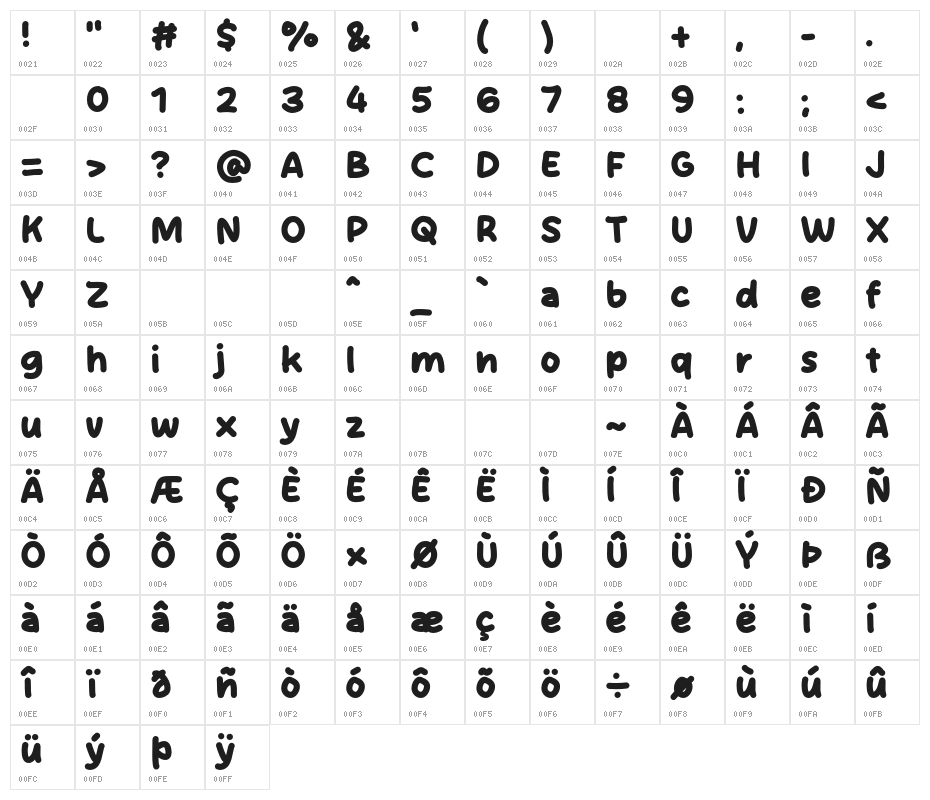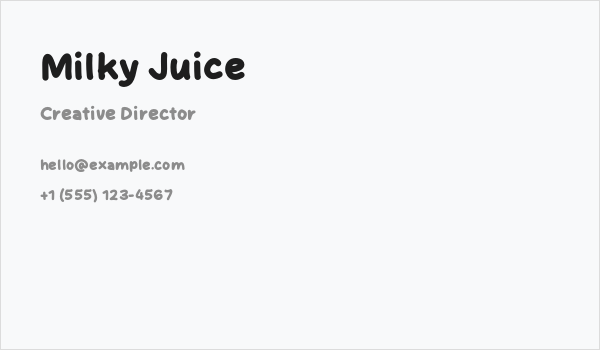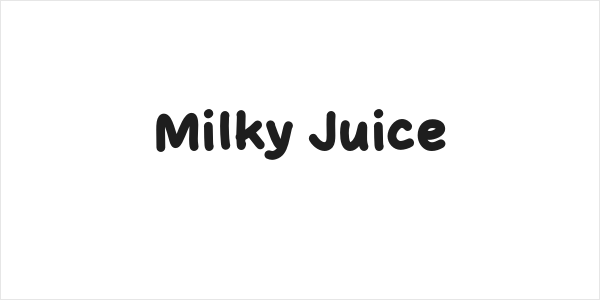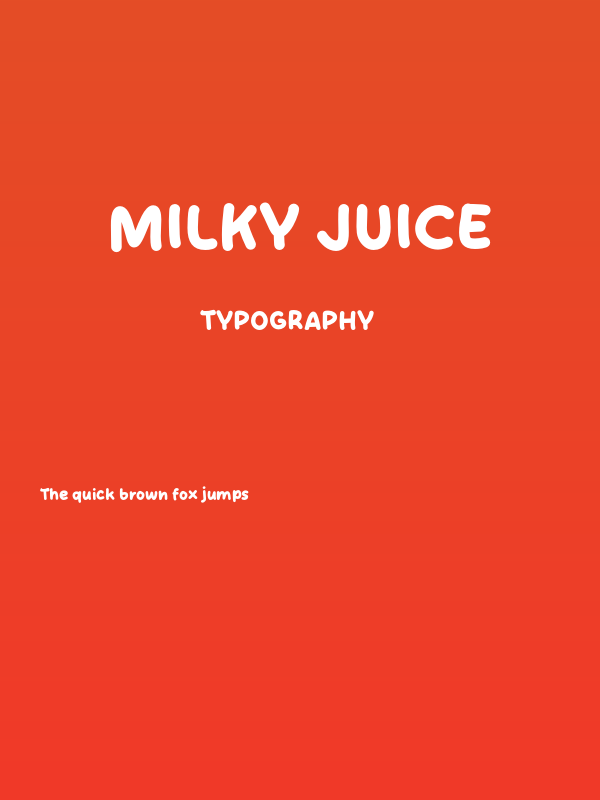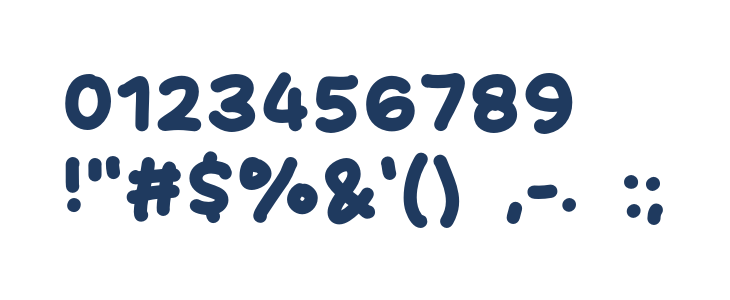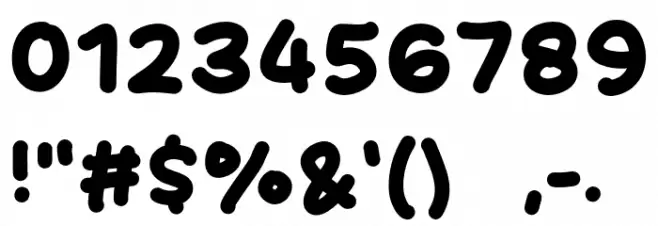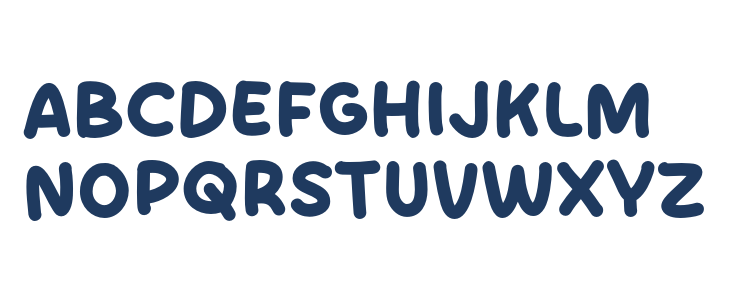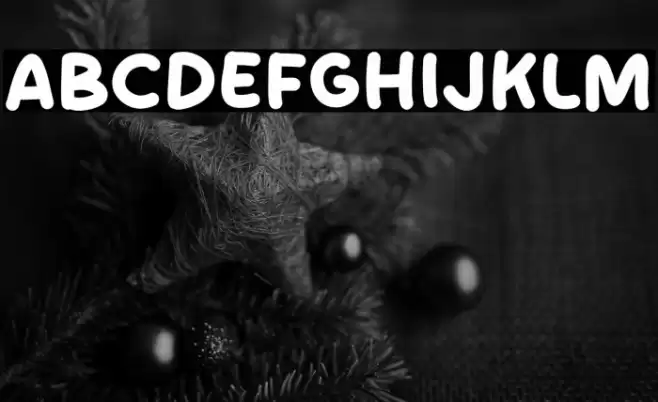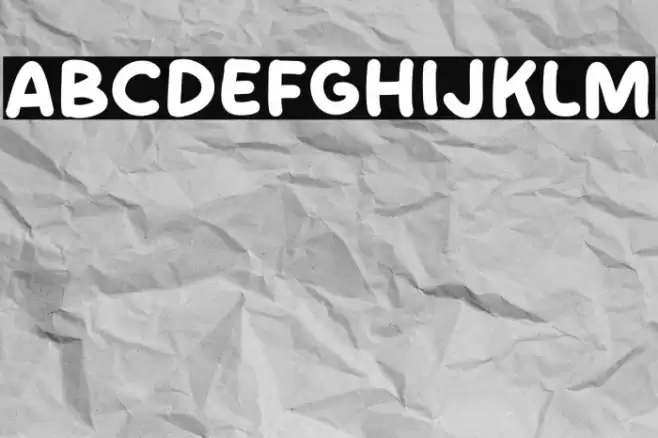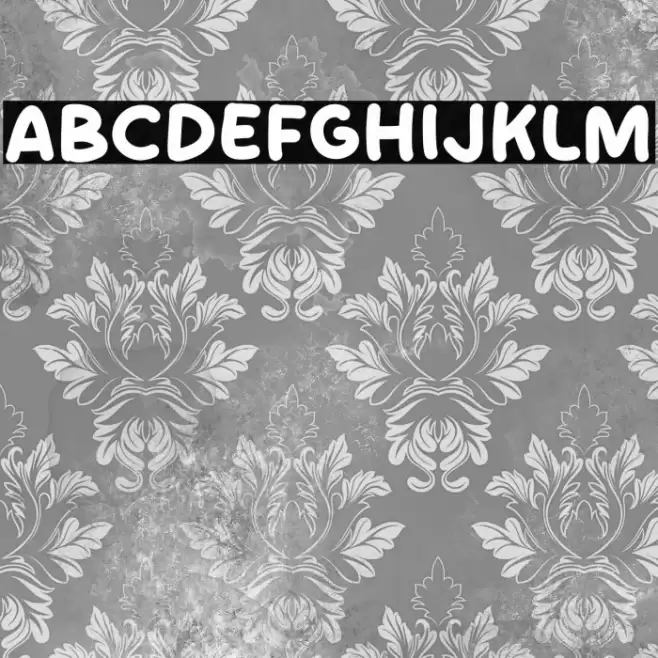
Milky Juice Font
Milky Juice Description
A playful, rounded, and bold sans-serif font with a casual, friendly appearance.
| Overall Style | Casual, Playful, Friendly |
| Use Case | Headlines, Body text, Logos, Posters |